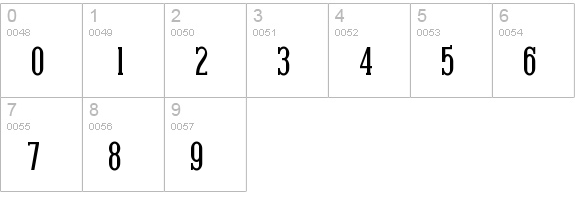
Covington Cond Bold is a strong, high-contrast, condensed-width variant in the Covington typeface family \xE2\x80\x94 well suited to headlines, attention-grabbing titles, and strong calls-to-action.
Covington Cond Bold is a striking and versatile typeface that exudes confidence and modernity. Its sleek and bold design makes it perfect for headlines, logos, and other display purposes. The clean lines and strong presence of Covington Cond Bold make it a must-have font for any designer looking to make a bold statement. Best of all, Covington Cond Bold is available for free download at FontsMarket.com. This means that you can easily add this powerful font to your collection without breaking the bank. Don't miss out on the opportunity to elevate your designs with Covington Cond Bold - download it today and start making a lasting impression with your typography.